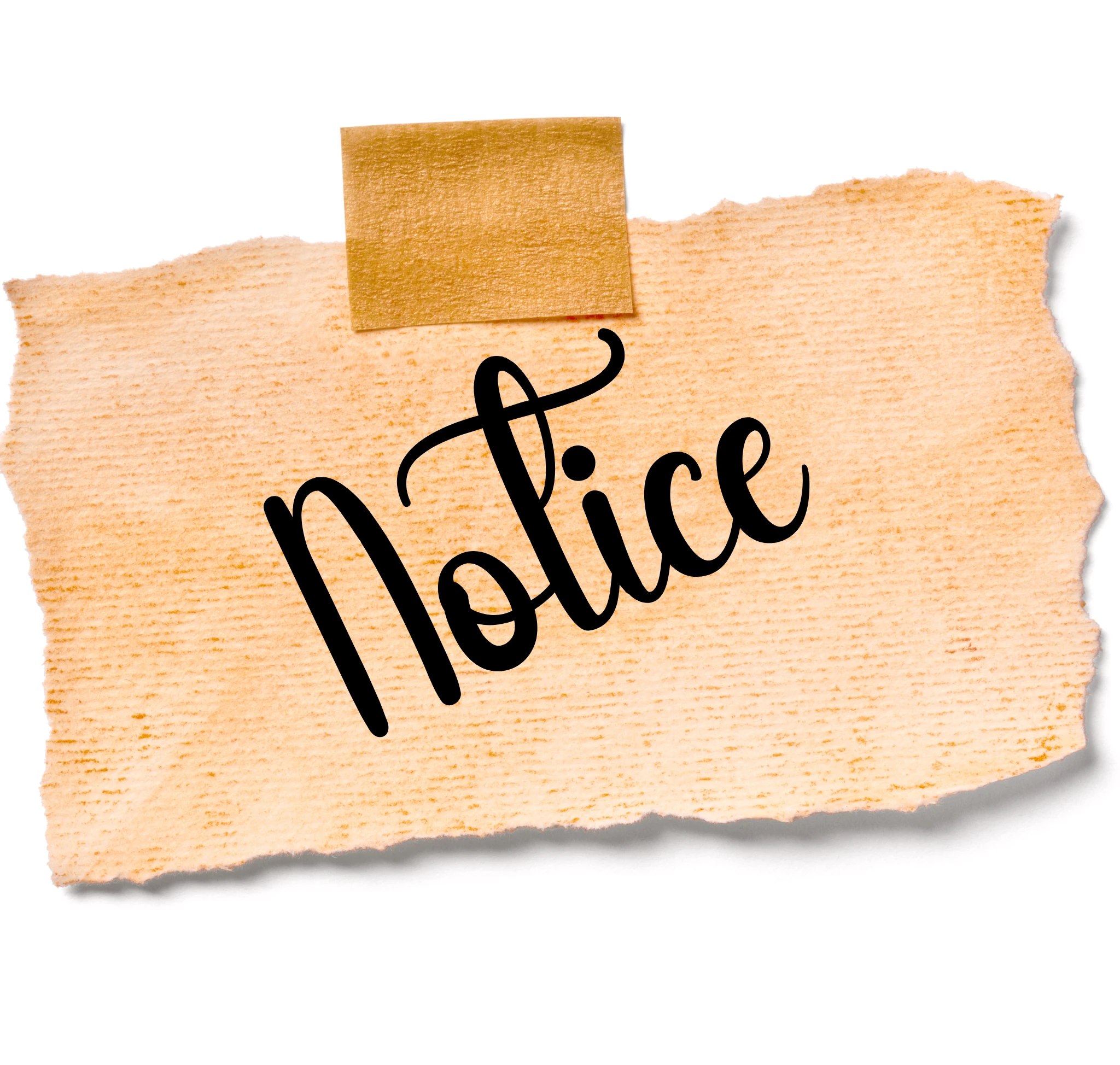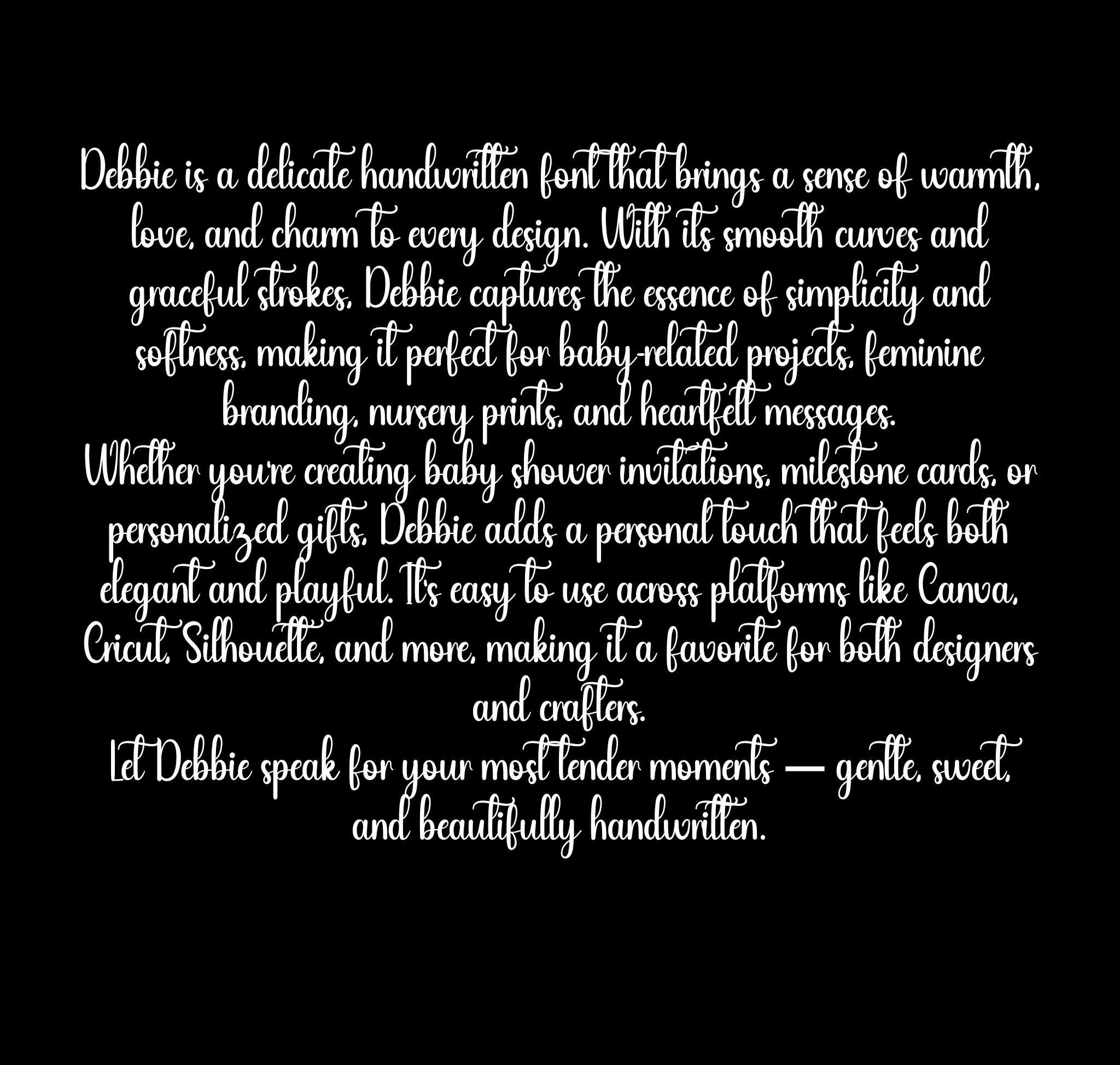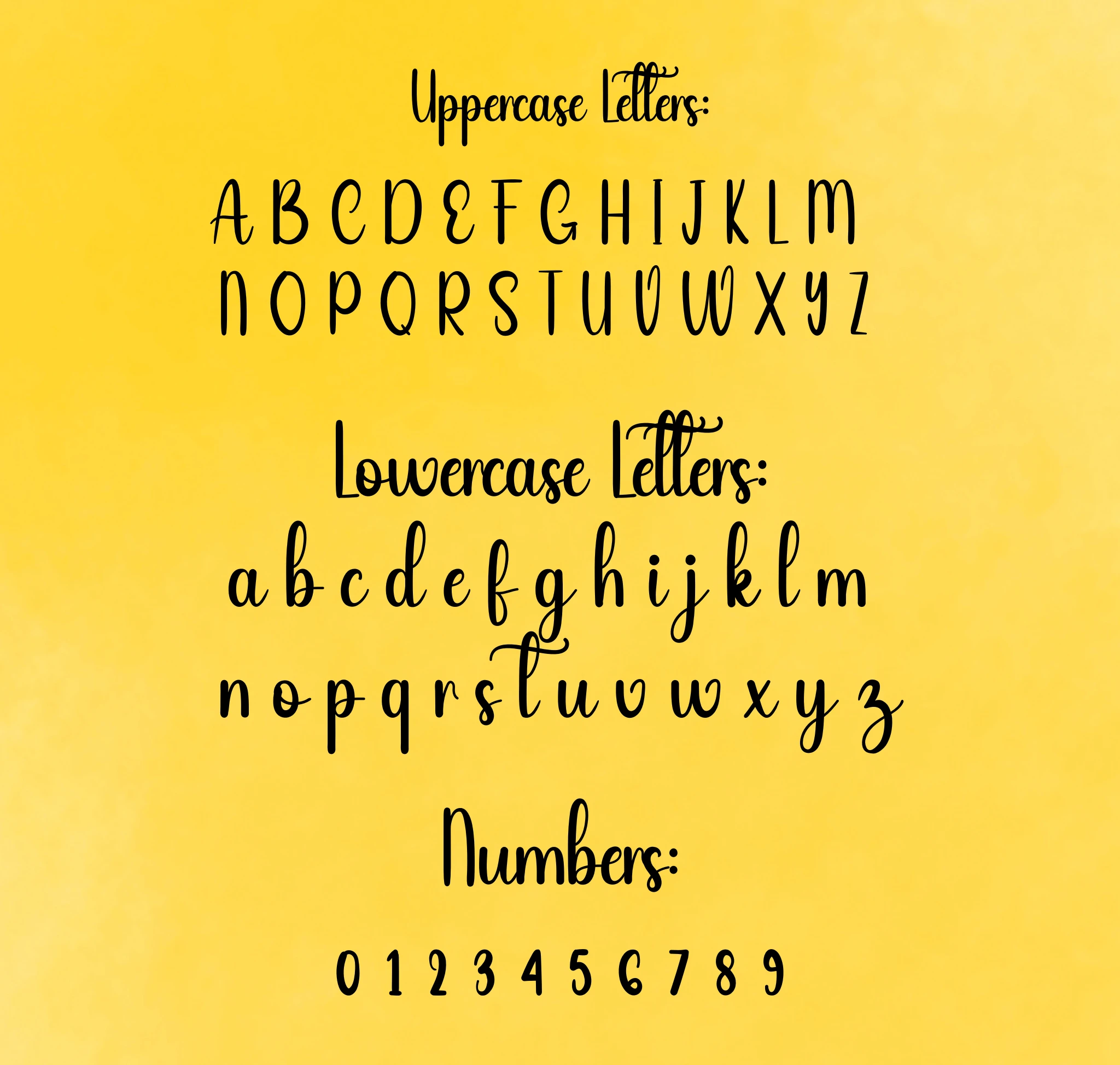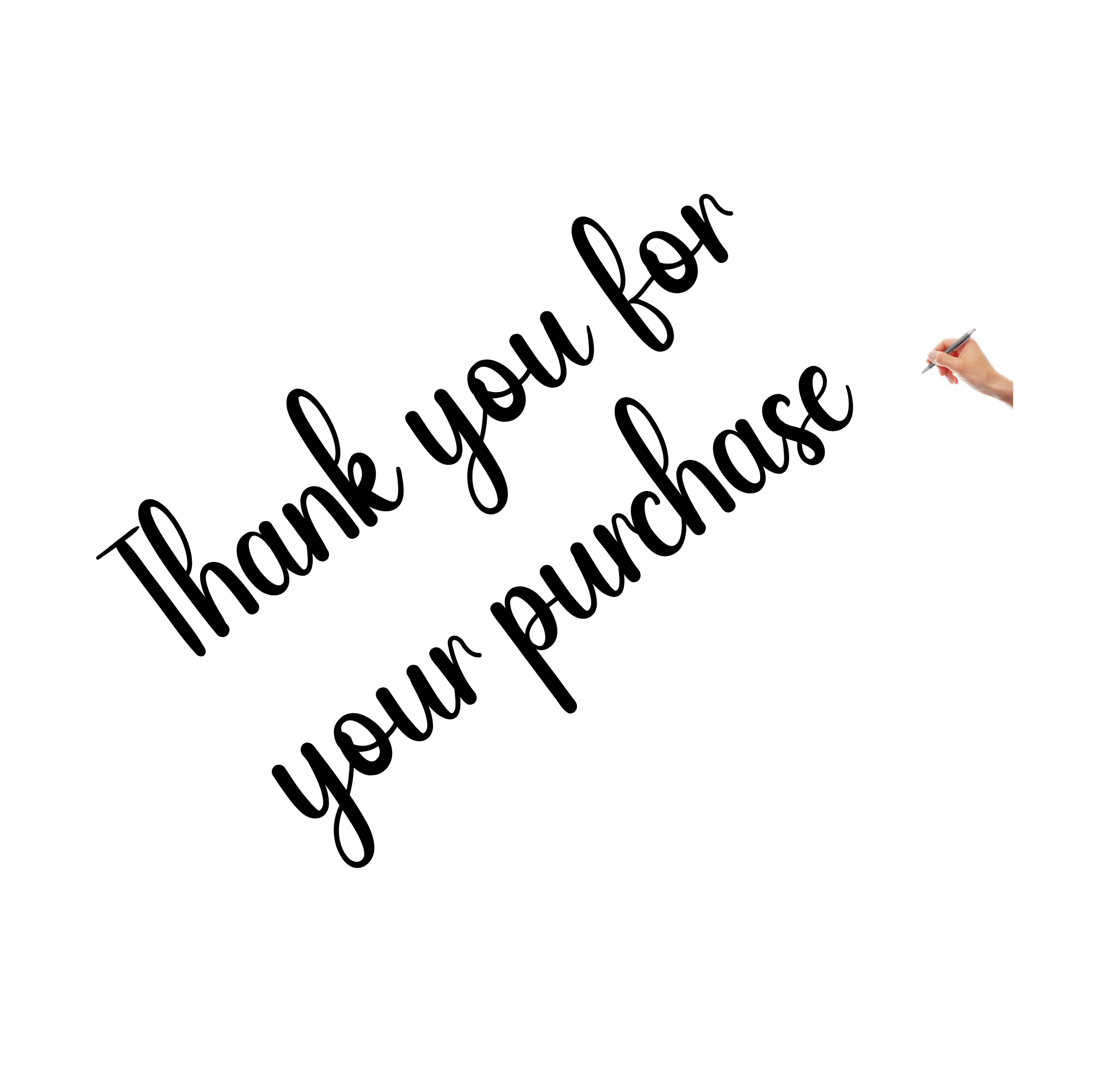
Give your designs a classy handwritten touch with the Debbie Font, a stylish and versatile script typeface. Its smooth curves and elegant strokes make it perfect for wedding stationery, logos, greeting cards, social media posts and crafts. Whether you’re creating invitations, branding or inspirational quotes, the Debbie Font adds warmth, personality and sophistication to your work.
Elegant, flowing handwritten script font
Perfect for wedding invitations, logos, quotes, greeting cards & more